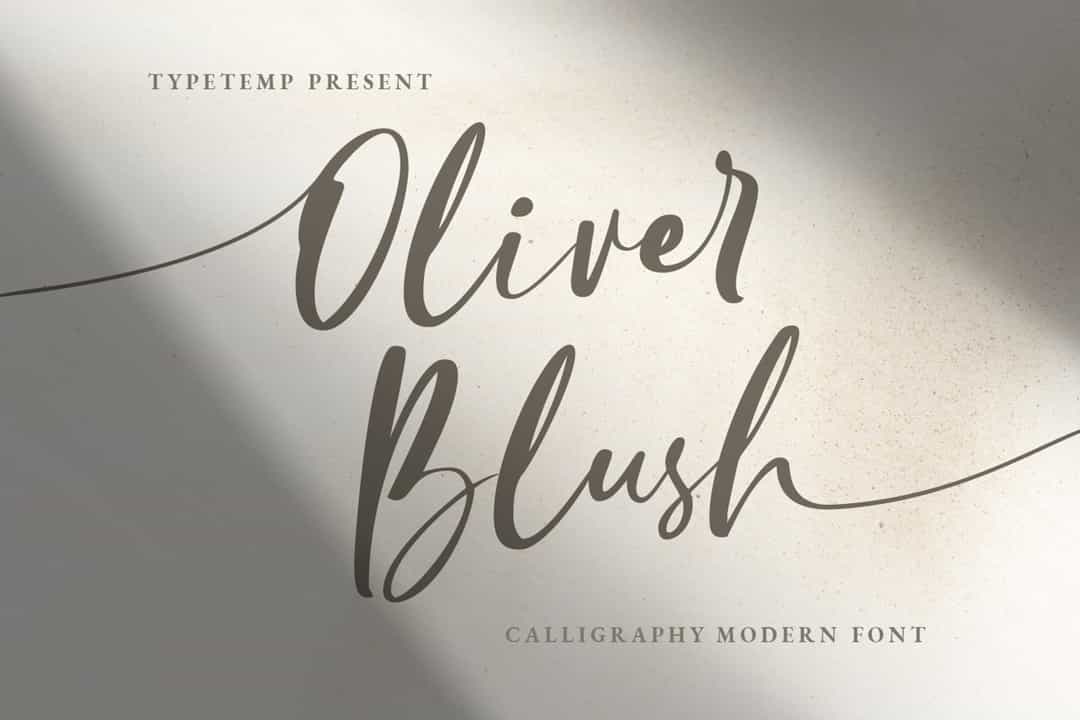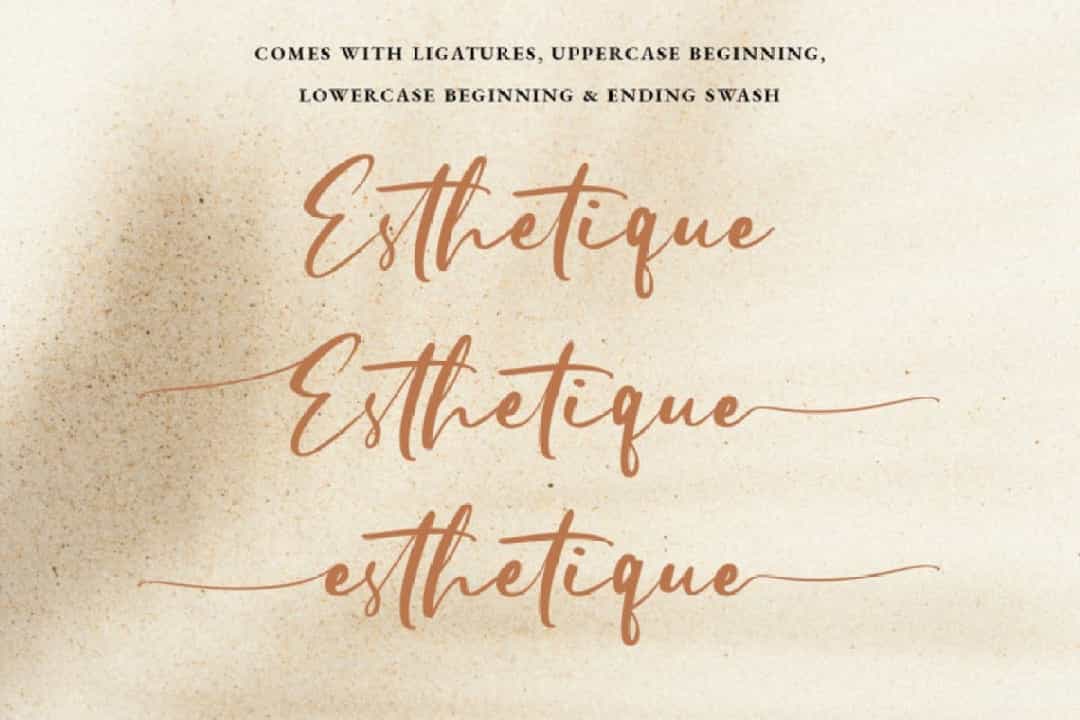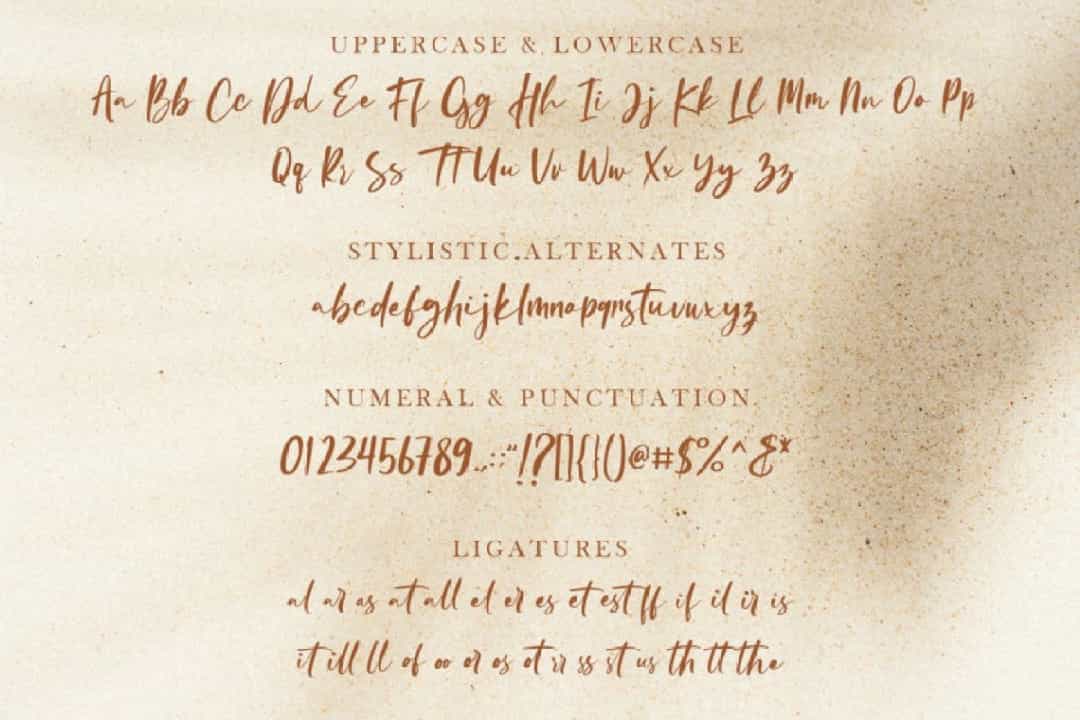
Oliver Blush is a nice, rather unobtrusive typeface that can be used for professional branding logos and other projects. It enhances the invitation cards, thank you cards, quotation cards, greeting cards, logos and business cards, in short, it gives an individualistic approach to your designs.